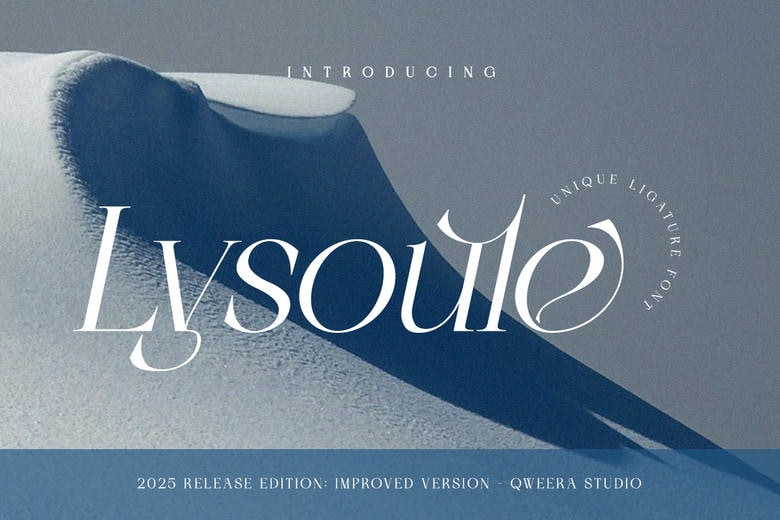
Lysoule Font
Lysoulé is a fancy ligature serif typeface which combines artistic elegance with contemporary elegance. Designed to satisfy designers and their need to make their projects stand out, Lysoulé includes well-stylized characters and bold ligatures that add the editorial, high-fashion touch to every project. This font has a sharp, elegant and sculptural lines that make it ideal in luxury branding, magazine header, fashion campaign, minimalist logo and high-end packaging.
The elegant typography and new ligatures in Lysoulé also create a sense that the letters were tailor-made and every word in your writing is art. It is perfectly digital and print-friendly, and this 2025 edition is better than the previous version with its enhanced versatility and multi-lingual capabilities, which makes your designs shine anywhere in the world. Lysoulé will bring classic elegance with a contemporary twist, be it haute couture, art gallery or even the luxurious lifestyle brand.
Lysoule Modern Serif Font